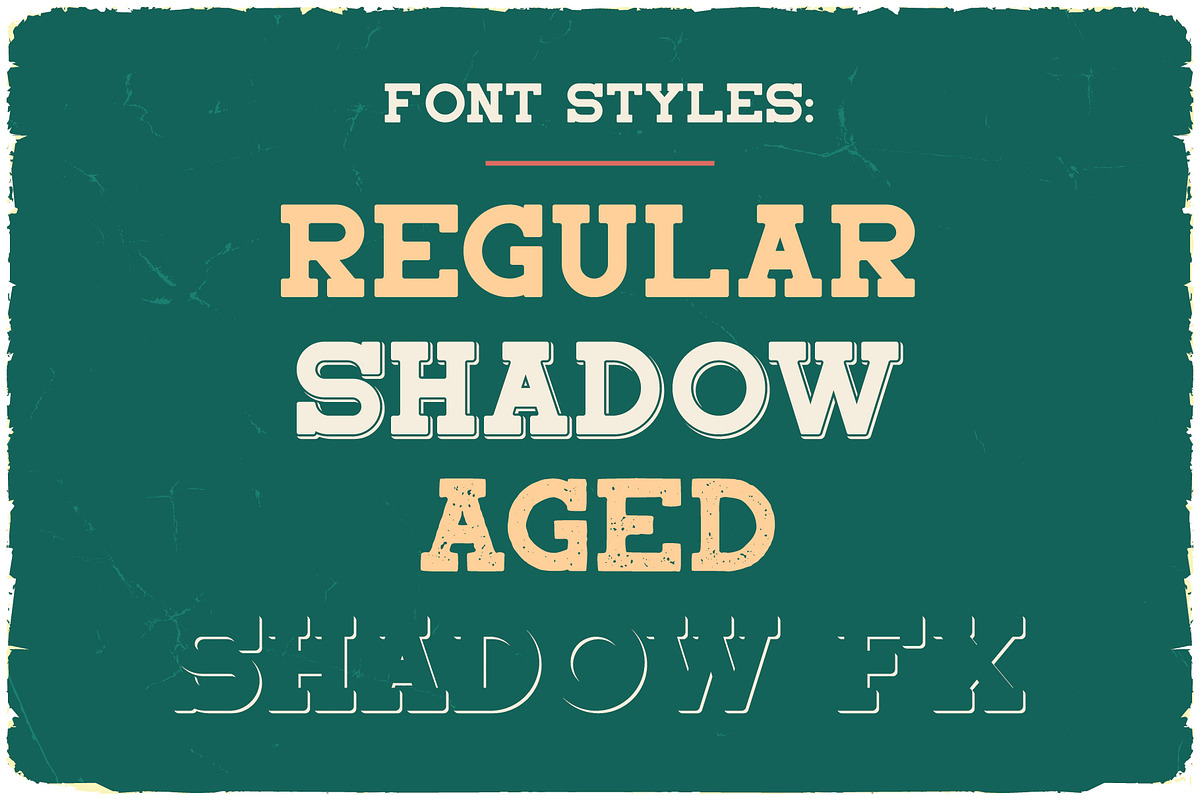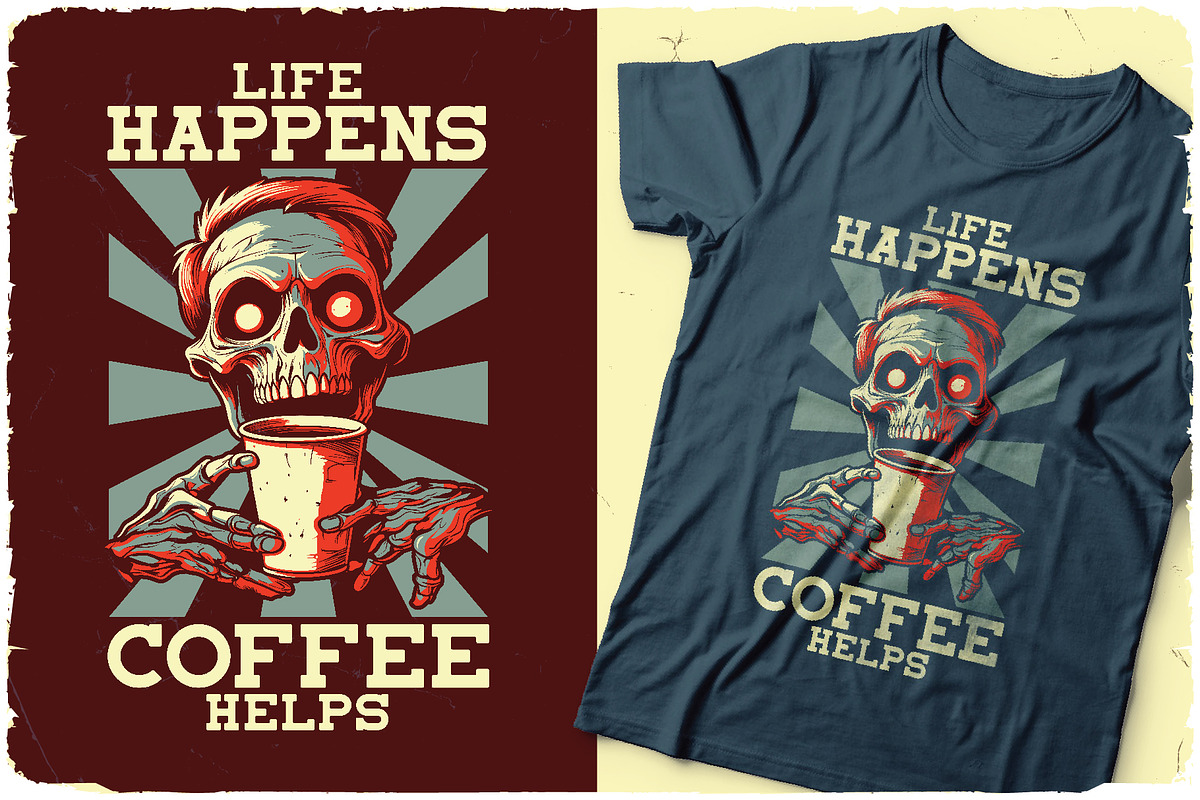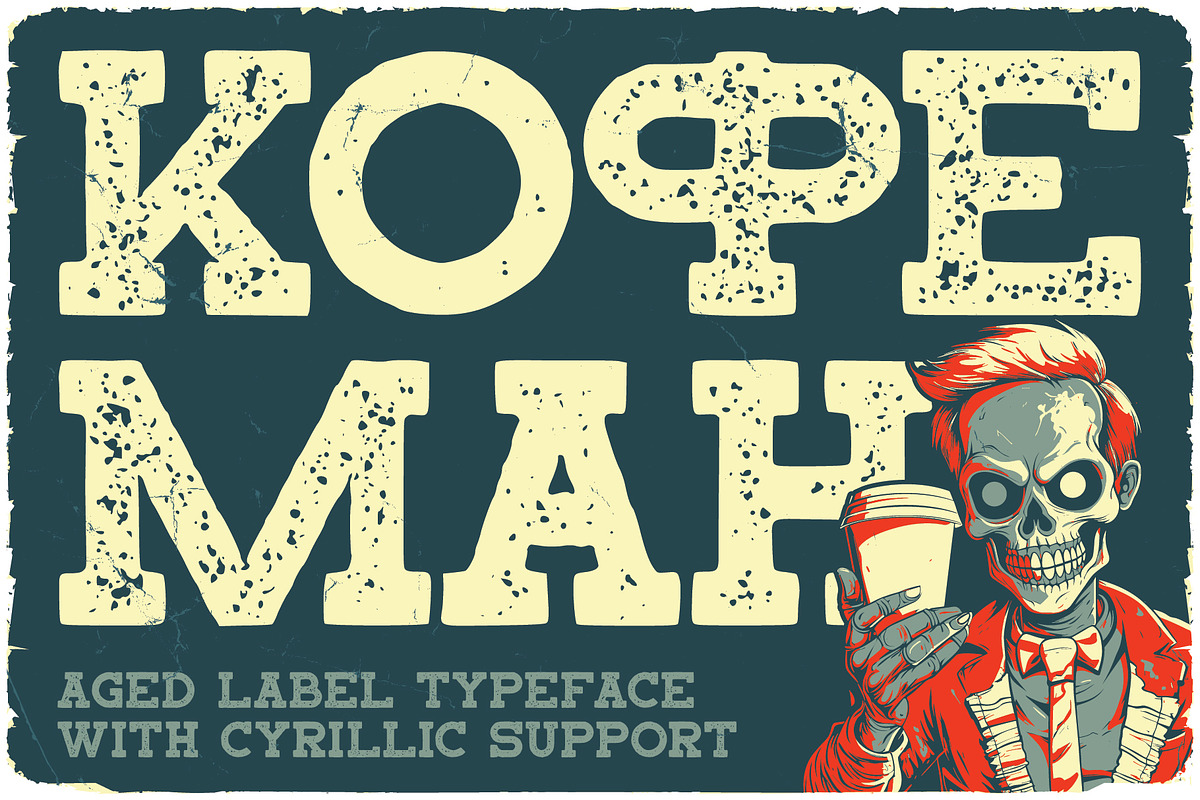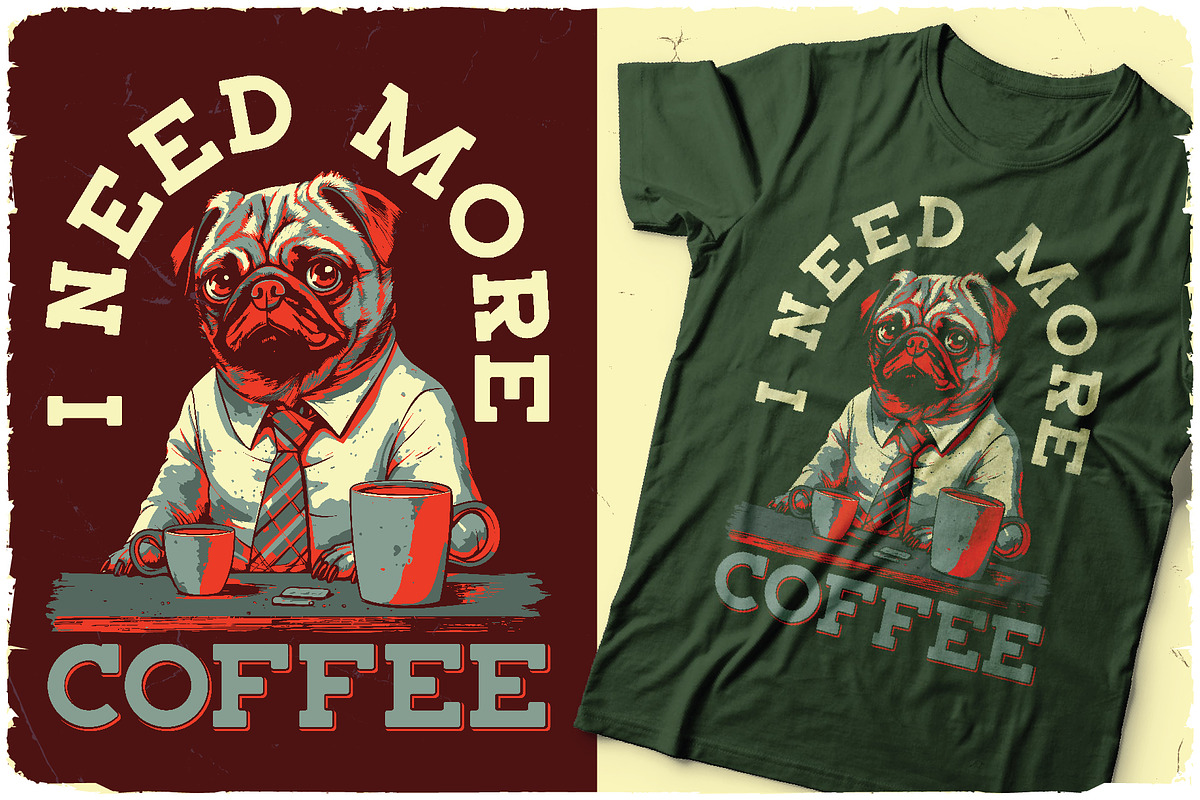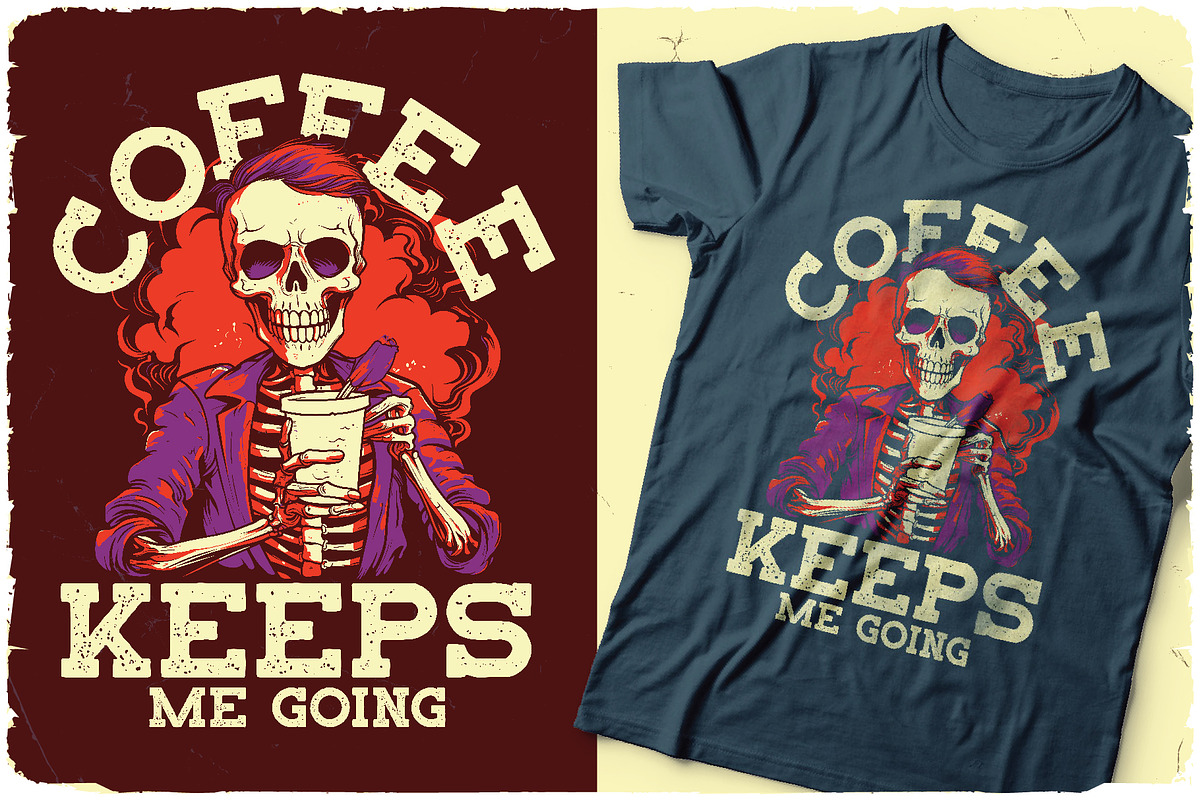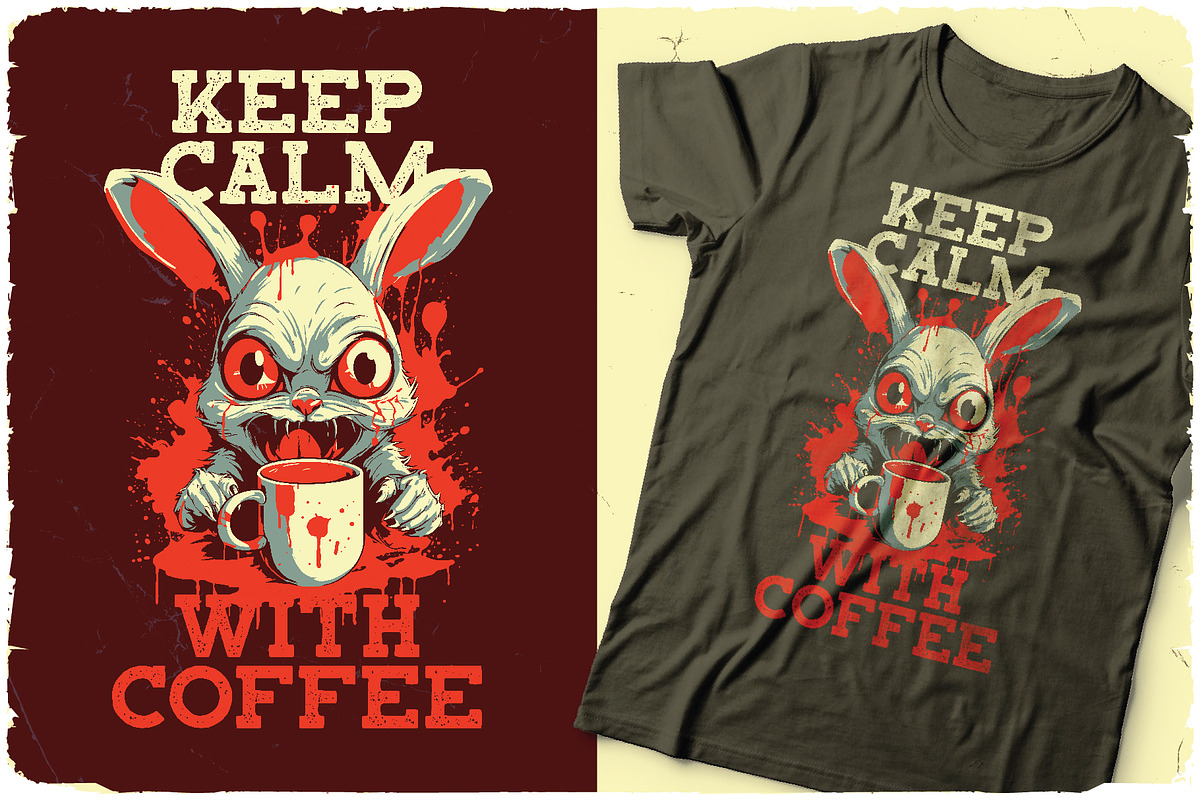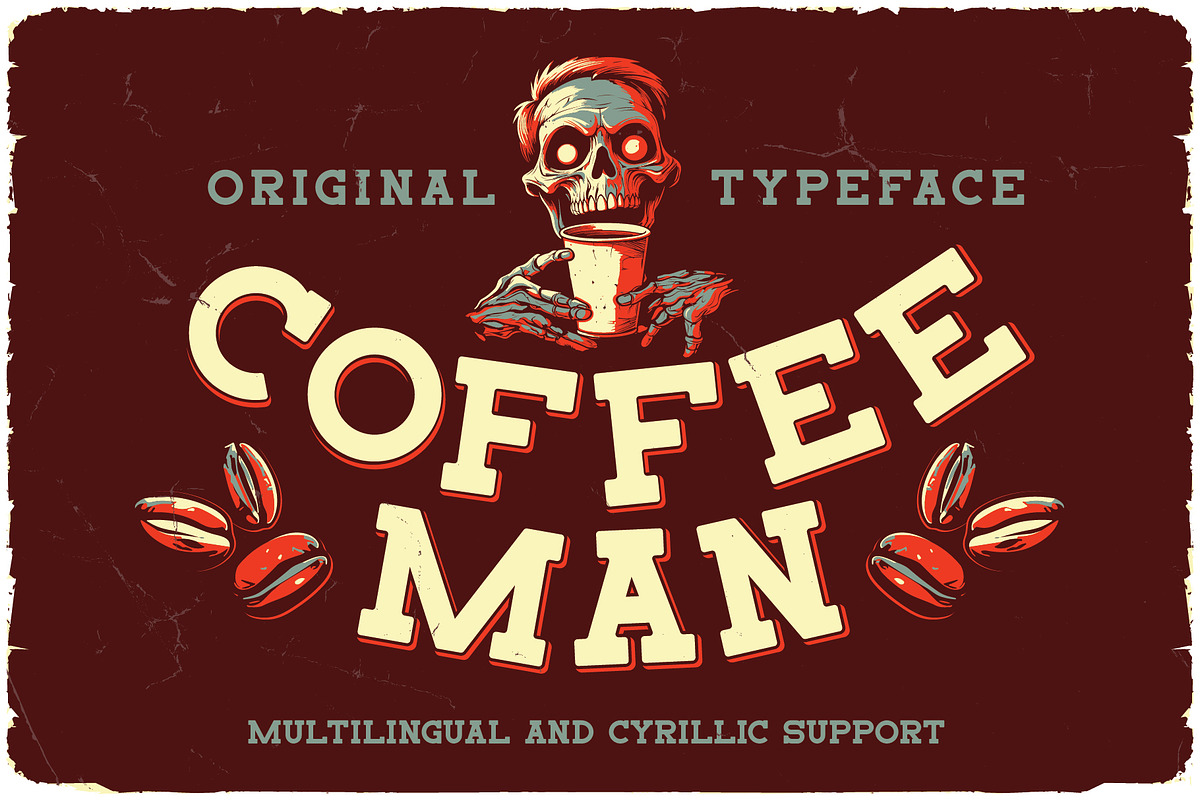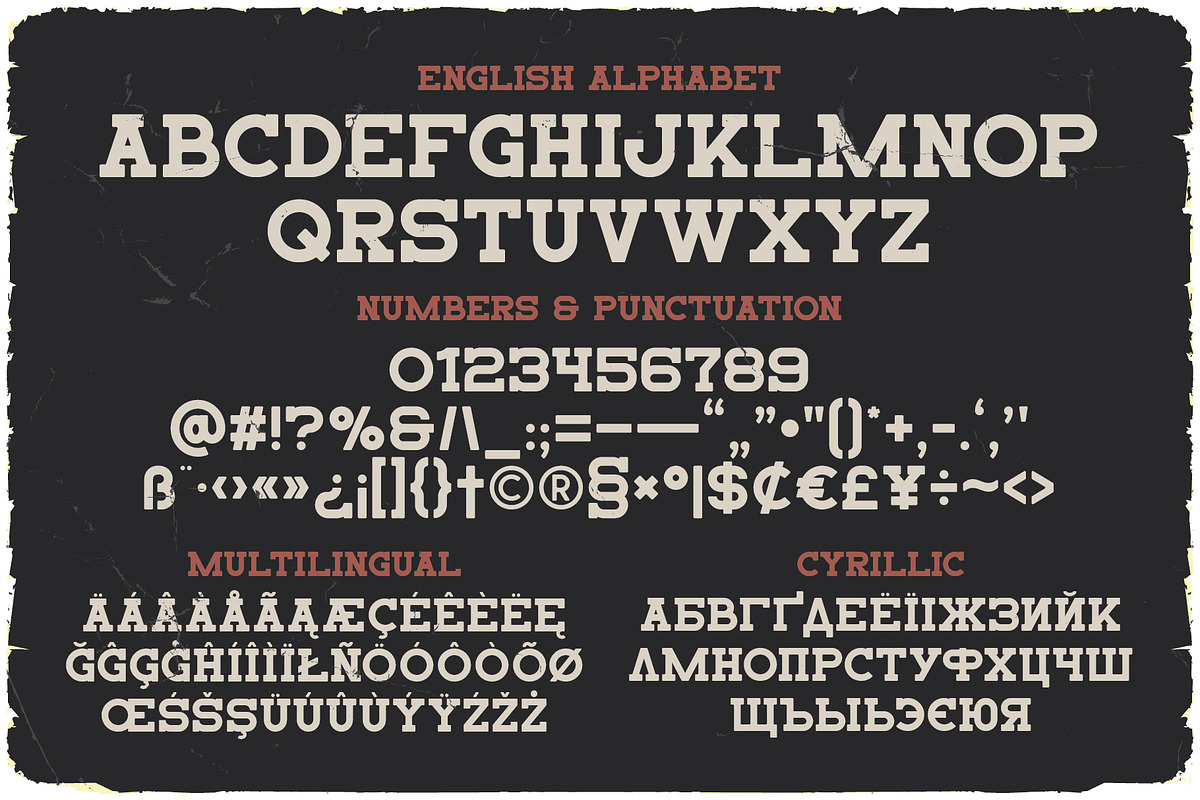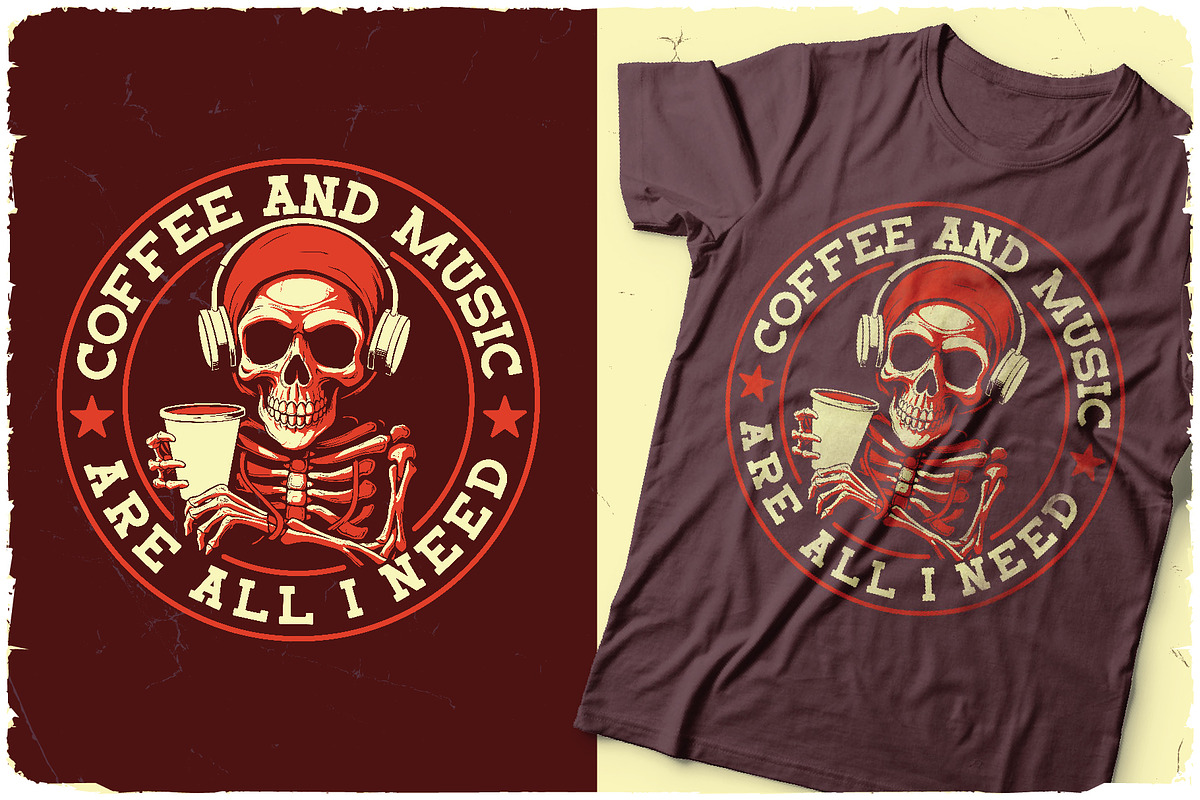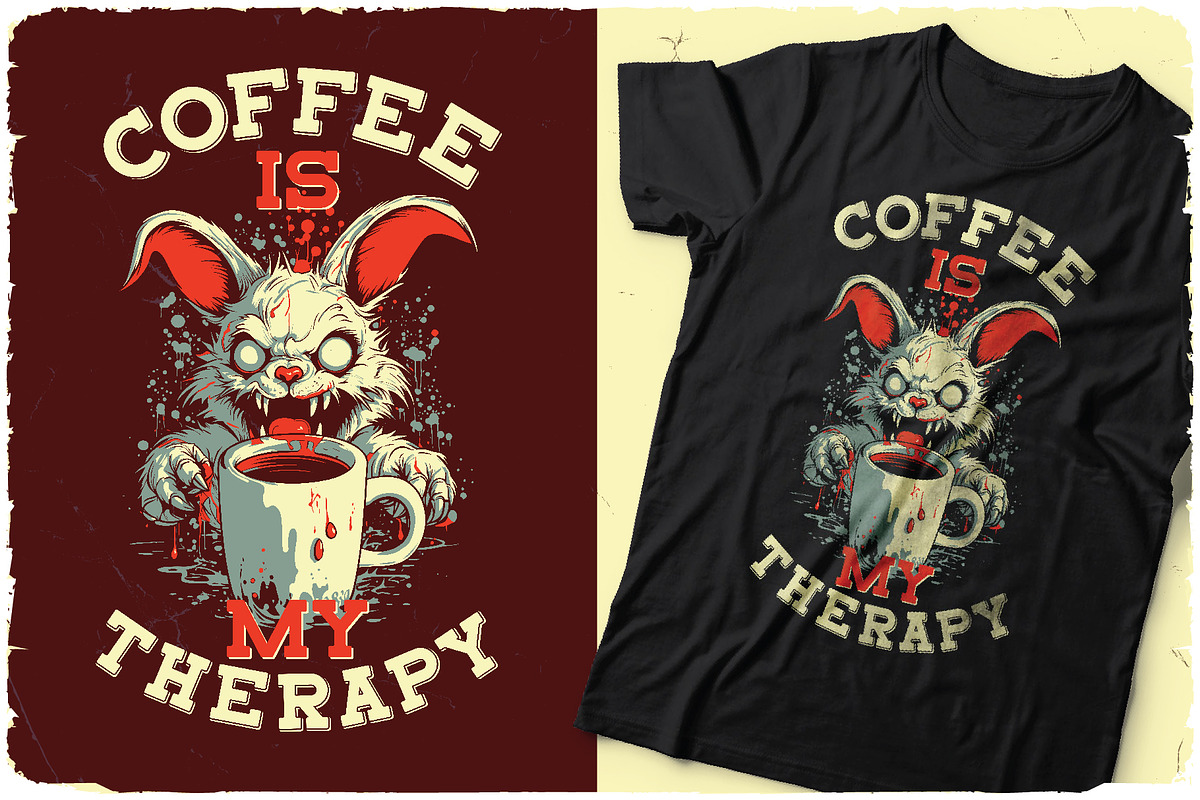
Coffee Man
Font "Coffee Man"
Infuse a vintage elegance into your projects with the "Coffee Man" font. This unique typeface carries the ambiance of old cafes and coffee shops, adding a special charm and character to your work.
Bold and Expressive: "Coffee Man" features bold, unmistakable contours with strong horizontal serifs, making your text stand out and capture attention.
Vintage Aesthetic: Inspired by mid-20th-century design, "Coffee Man" exudes an antique charm and sophistication, perfect for giving your projects a nostalgic touch.
Multilingual Support: The font supports multiple languages, ensuring its suitability for projects with a global audience.
Readability: Despite its bold style, "Coffee Man" maintains readability at various scales, making it versatile for different types of projects.
Your T-Shirt Designs:
- T-shirt designs
- Logos and branding
- Advertising materials
- Cafe and restaurant menus
- Business cards and packaging
Don't miss the opportunity to enrich your font collection and add a unique vintage style to your projects. "Coffee Man" is not just a font; it's inspiration for your creativity.